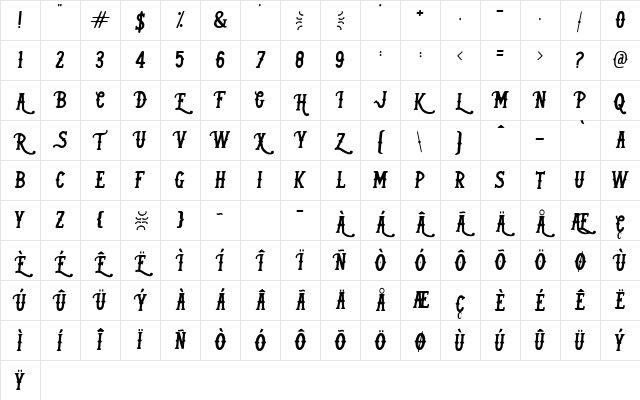
(Kind Of Rock) Regular
Foundry: Display Studio
Designer: Display Studio
Design Context for (Kind Of Rock)
(Kind Of Rock) is a composed and adaptable typeface that performs quietly and consistently across a wide range of design contexts.